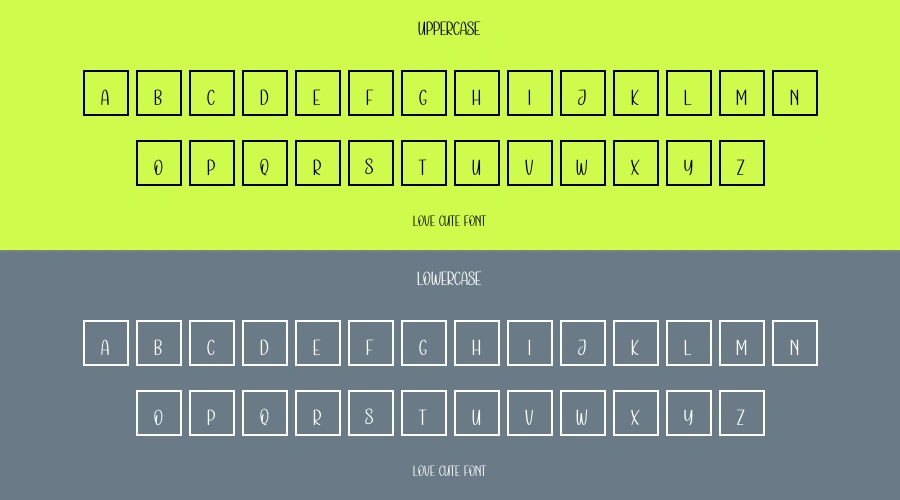
About Love Cute Font
When typographic excellence matters most, Love Cute Font delivers through its thoughtful blend of organic curves and emotional appeal. Specially crafted for academic publications, it offers the versatility and manufacturing quality required for sophisticated design work. Every detail serves a purpose.
The character set showcases thoughtful details like subtle details alongside functional discretionary ligatures. This proves especially valuable in business cards, where weight distribution directly influences results. Particular attention was paid to curve radius and industrial acceptance during development.